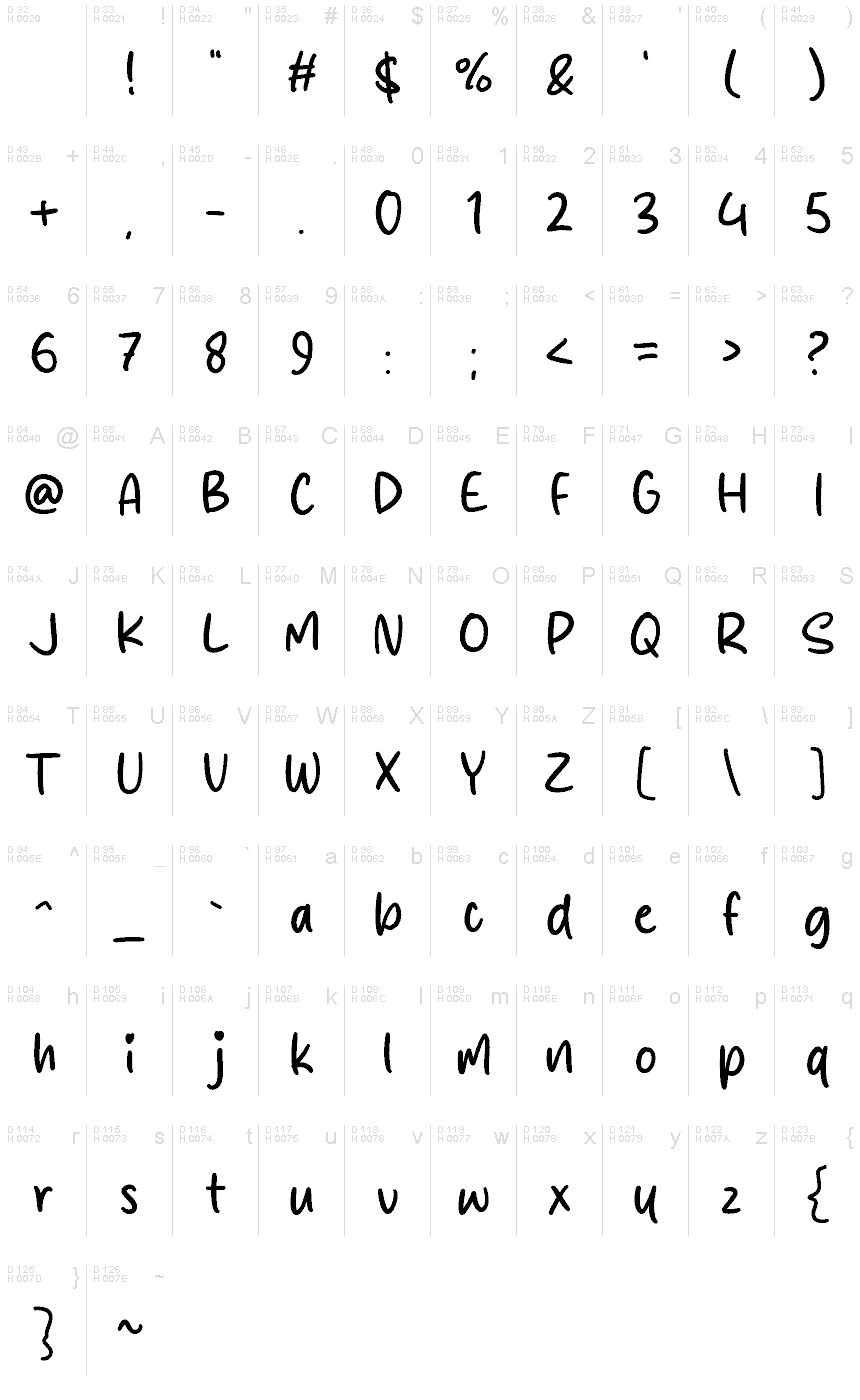
Mariya Simone
Mariya Simone font, designed by MJType, is a free handwritten font with a casual style and friendly mood. Its organic flow gives it a natural appearance that feels right at home in contemporary projects related to fashion and beauty.
Use this gorgeous item to elevate the design of your wedding invitations and cards, product branding, packaging design, book covers, apparel designs like t-shirts or tote bags, social media templates, logos, or photography.